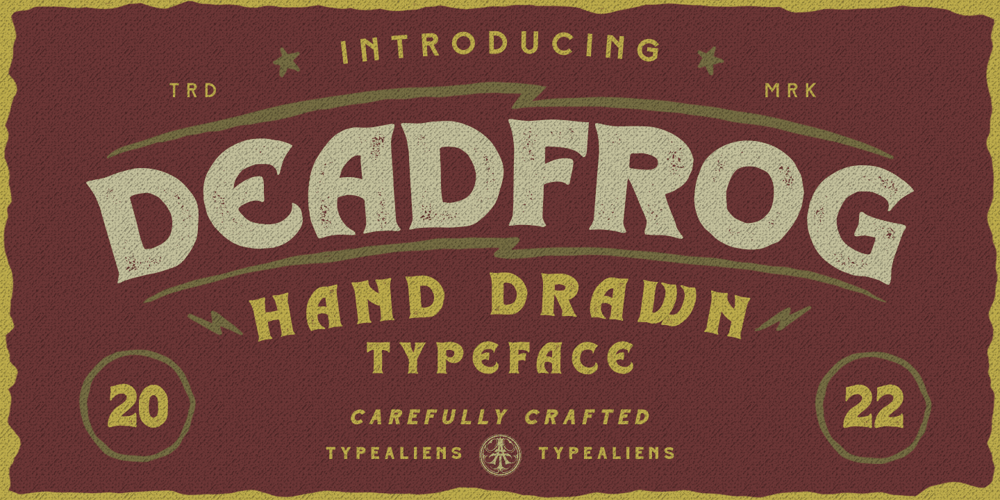
Deadfrog Font Family was designed by Ilham Wahyu and published by Ilhamtaro. Deadfrog contains 1 styles and family package options. DEADFROG is a simple classic font, the base is a super bold serif font that is given a grunge texture effect, resulting in a vintage font, which is suitable for supporting designs related to the world of motorcycle custom. But it can also be used for other designs that require a vintage, bold design style, such as magazine headlines or posters.To enable the OpenType Stylistic alternates, you need a program that supports OpenType features such as Adobe Illustrator CS, Adobe Indesign & CorelDraw X6-X7.Cheers!